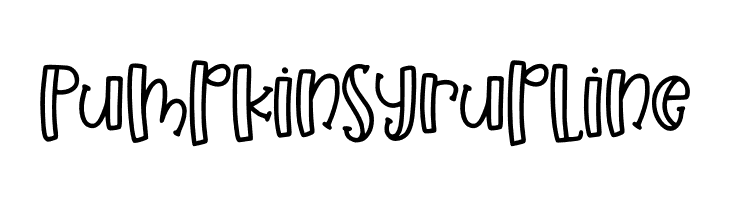
A bold, Halloween-themed font with playful, spooky elements.
A playful, bold font with a hand-drawn, whimsical style and rounded, lively characters.
A playful, hand-drawn font with bold, rounded characters and whimsical charm.
A playful, hand-drawn font with a whimsical and energetic style.
A playful, hand-drawn font with a whimsical and friendly style.
A playful, bold handwritten font with a whimsical and friendly style.
A playful, hand-drawn font with bold, rounded strokes and a whimsical style.
A bold, playful hand-drawn font with whimsical loops and curls.